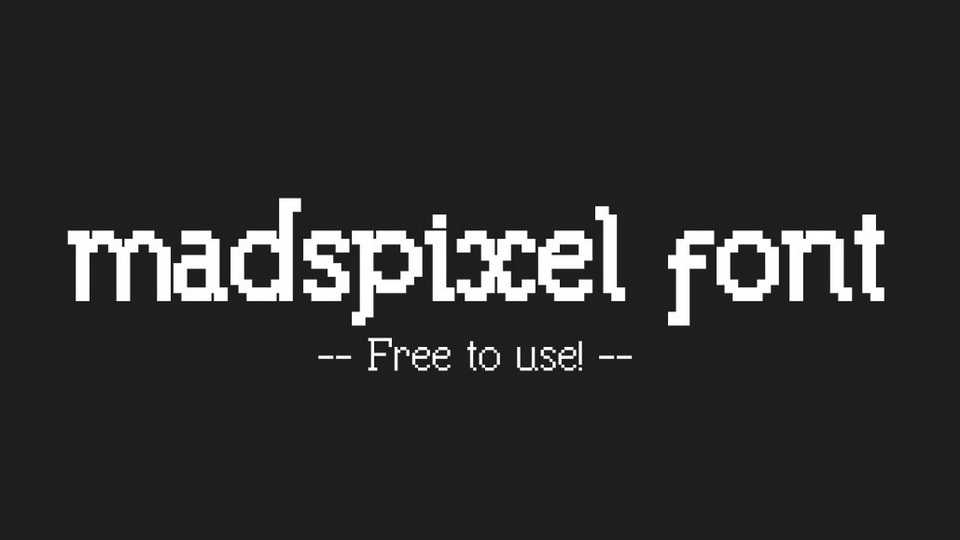
Download Madspixel font, a unique and legible pixel typeface created for the game. Madspixel font is great for both digital and print applications to give a retro charm to the designs.